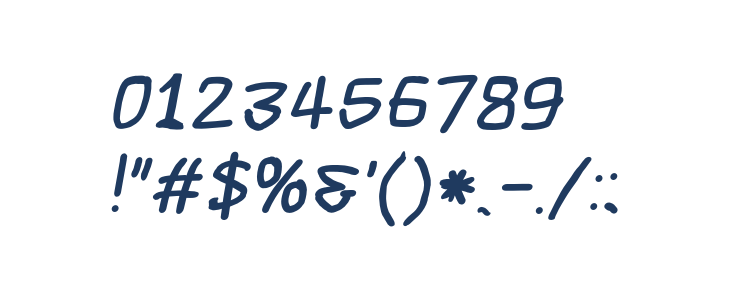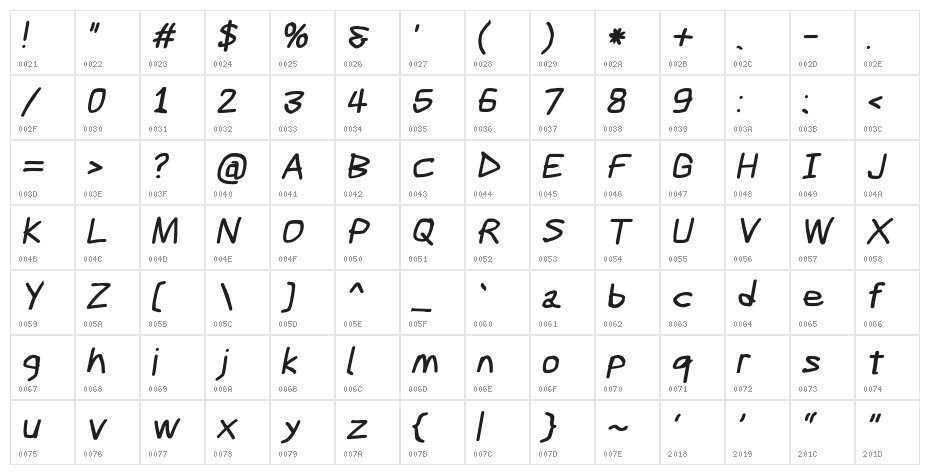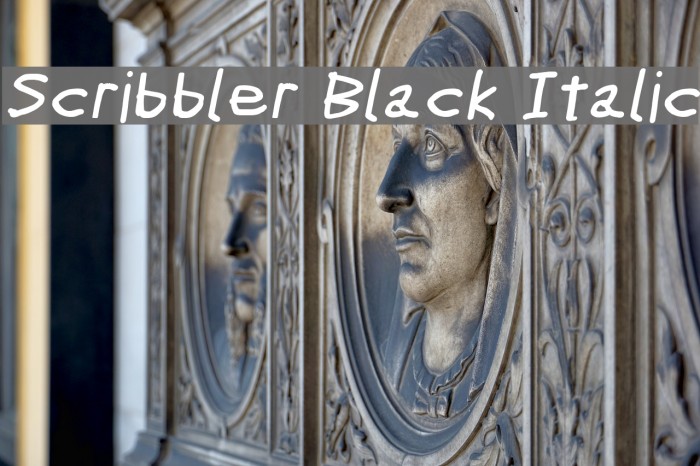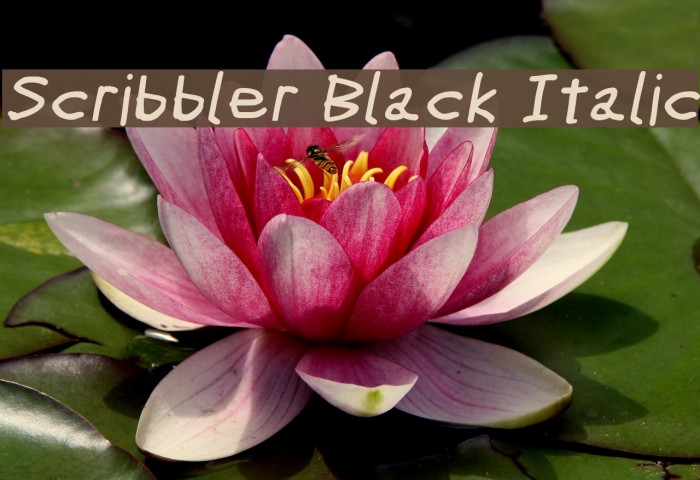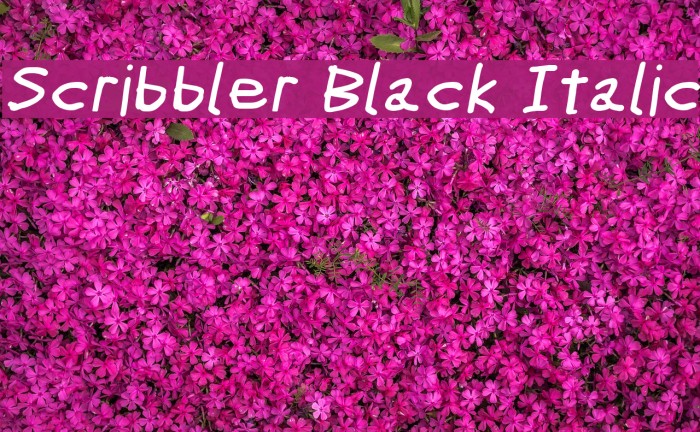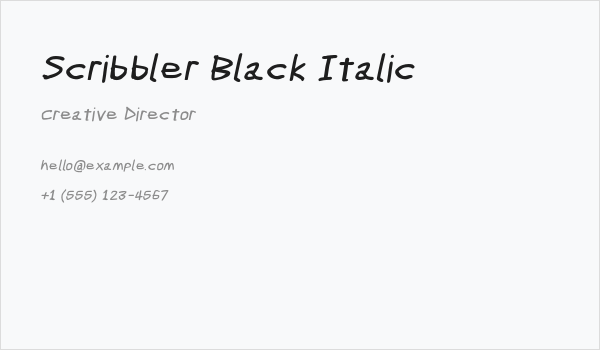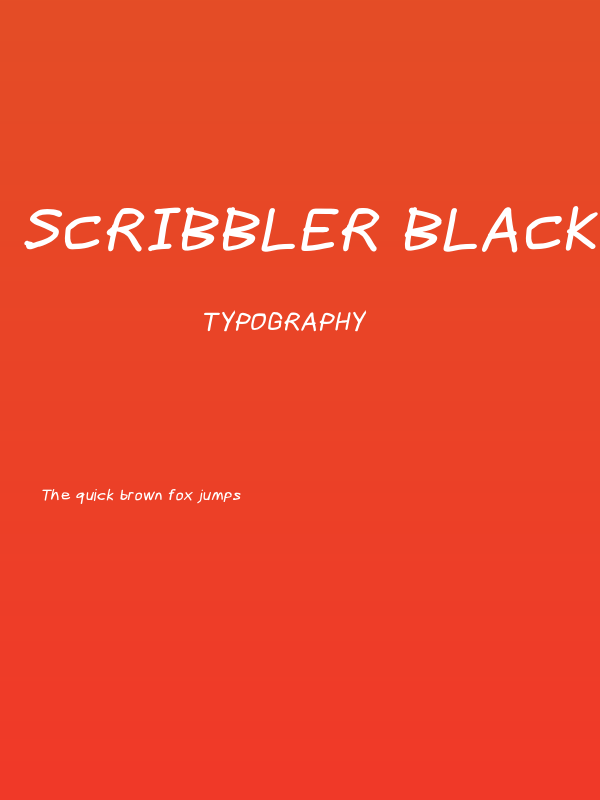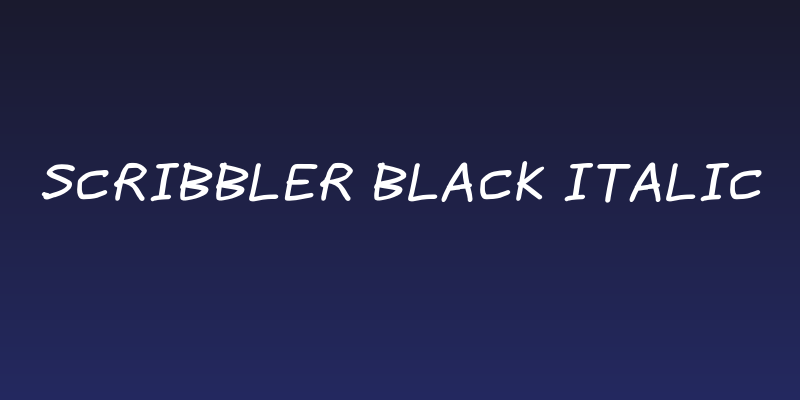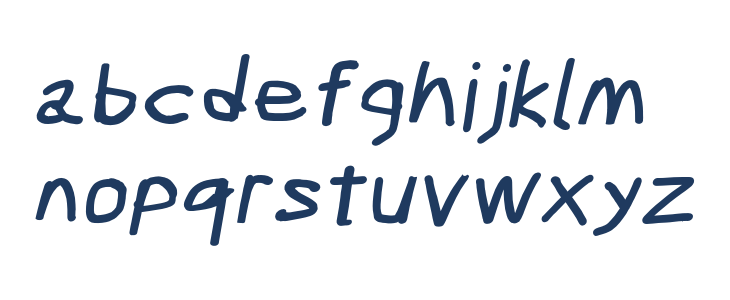
Scribbler Black Italic Font
Scribbler Black Italic Description
This font features a playful and informal handwritten style, characterized by its slightly slanted and bold appearance. The letters have a casual, free-flowing form that mimics natural handwriting, giving it a personal and approachable feel. The strokes are consistent in thickness, contributing to a uniform look across all characters. The uppercase letters are slightly larger than the lowercase, maintaining readability while adding a touch of whimsy. The numbers and special characters follow the same style, ensuring cohesion throughout. This font is perfect for projects that require a friendly and informal touch.